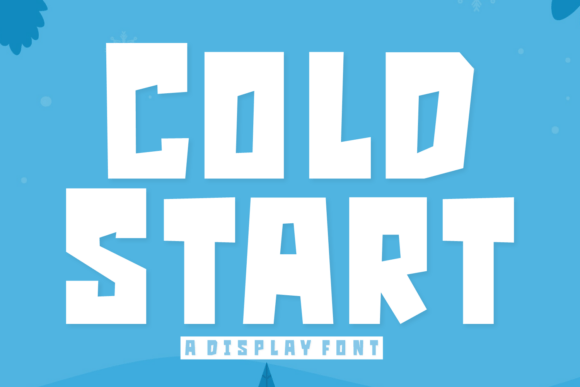
Introducing Cold Start: The Ultimate Display Font for Creative Projects
Are you tired of using the same old fonts for your creative projects? Look no further! Cold Start is a versatile display font that combines charm, charisma, and confidence in each letter. This distinctive typeface boasts a unique, fancy cartoon style that makes it perfect for crafting bold presentations, eye-catching school projects, and energetic product packaging.
A Font that Packs a Punch
Cold Start is not just a font, it’s an experience. Its vibrant nature is apt for creating compelling greeting cards and promotional materials that leave an unforgettable impression. Whether you’re designing a winter campaign with its frosty appeal or creating merry Christmas-themed art, Cold Start shines through with its authentic and strong font characteristics.
Endless Possibilities
The versatility of Cold Start is one of its most impressive features. This font can adorn not just posters and labels, but also t-shirts and game interfaces. Its clean design makes it the multipurpose font of choice for designers and crafters. With Cold Start, you can breathe life into covers, crafts, and creative masterpieces.
What Makes Cold Start Special?
- Unique and Fancy Cartoon Style: Cold Start boasts a distinctive, fancy cartoon style that sets it apart from other fonts.
- Vibrant and Energetic: This font is perfect for creating bold and eye-catching designs that leave a lasting impression.
- Multipurpose: Cold Start can be used for a wide range of projects, from posters and labels to t-shirts and game interfaces.
- Clean Design: The clean design of Cold Start makes it easy to read and versatile for various design applications.
Cold Start is a font that understands the needs of designers and crafters. Its lively presence can add a touch of charm to any project. Whether you’re a professional designer or a DIY enthusiast, Cold Start is the perfect choice for anyone looking to add a unique and creative twist to their work.
Tips for Using Cold Start
- Experiment with Different Sizes: Cold Start looks great in large and small sizes, so don’t be afraid to experiment with different sizes to find the perfect fit for your project.
- Pair with Other Fonts: Cold Start pairs well with other fonts, so try combining it with other fonts to create a unique and interesting design.
- Use for Headlines and Titles: Cold Start is perfect for headlines and titles, so use it to add a touch of charm and personality to your designs.
In conclusion, Cold Start is a versatile display font that is perfect for designers and crafters looking to add a unique and creative twist to their projects. Its distinctive, fancy cartoon style and vibrant nature make it perfect for crafting bold presentations, eye-catching school projects, and energetic product packaging. With its clean design and multipurpose features, Cold Start is the ultimate font for anyone looking to leave a mark of charm on their designs.